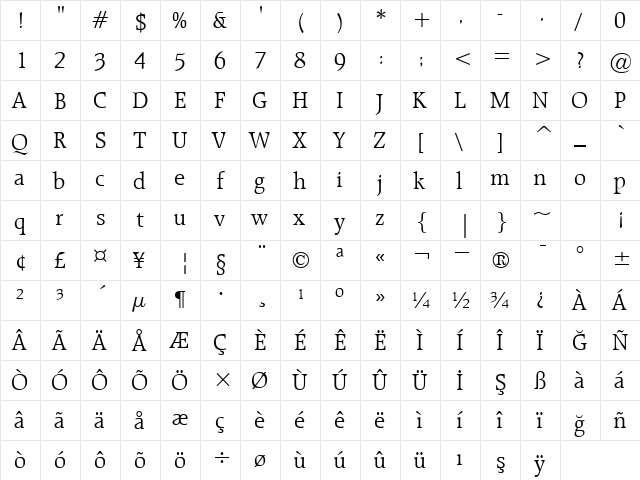
00573 Regular
Design Context for 00573 Typeface
00573 offers clean, dependable letterforms without strong stylistic allegiance, making it a practical choice for designers who need flexibility.